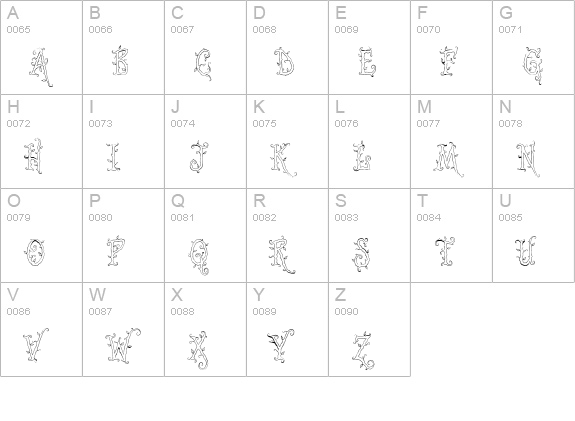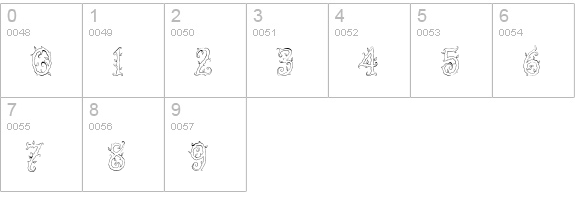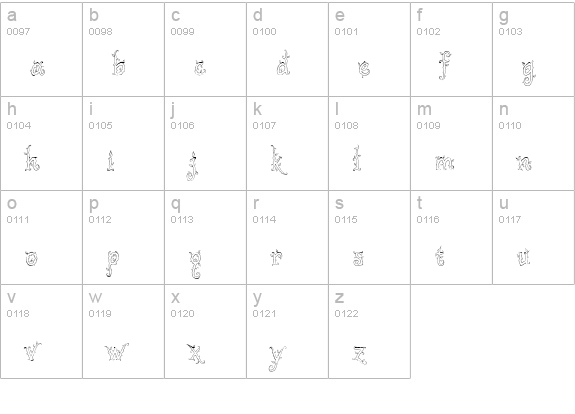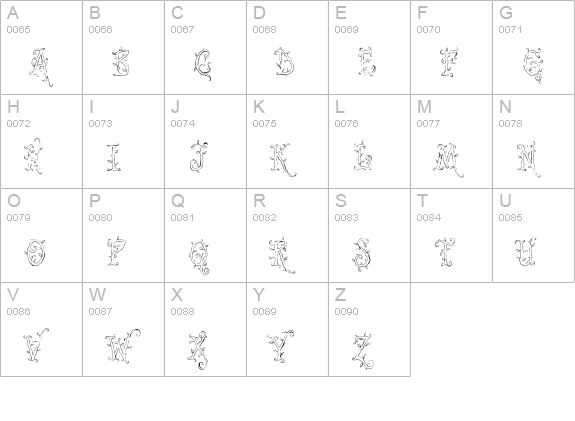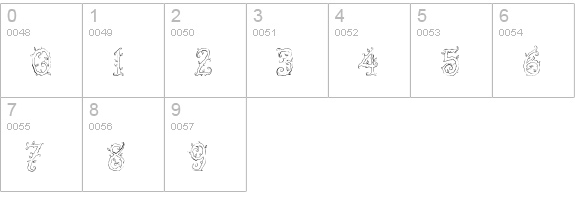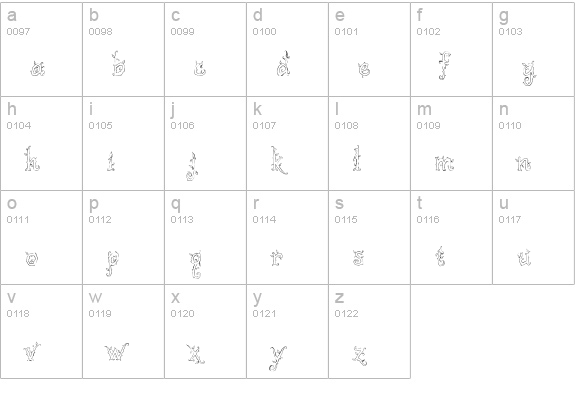
Tarzana font is a stunning display typeface that effortlessly combines elegance with a touch of playfulness. Its bold and curvaceous letterforms are sure to catch the eye and make a lasting impression. This versatile font is perfect for a wide range of design projects, whether you're creating eye-catching headlines, stylish logos, or captivating posters. With its unique and distinctive character, Tarzana font adds a touch of sophistication to any design. One of the best things about Tarzana font is that it is available for free! That's right, you can freely download this amazing font at FontsMarket.com. This means you can enhance your designs with this high-quality typeface without breaking the bank. Whether you're a professional designer or just starting out, Tarzana font offers endless creative possibilities. Its smooth curves and well-balanced proportions make it easy to read, ensuring that your message is conveyed clearly and effectively. So why wait? Download Tarzana font today and elevate your designs to new heights. With its timeless elegance and free availability, this font is a must-have for any design enthusiast.